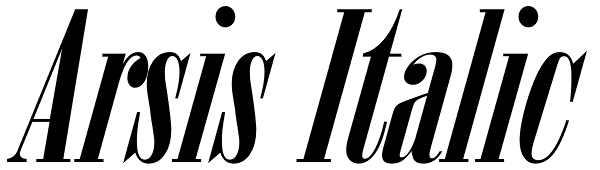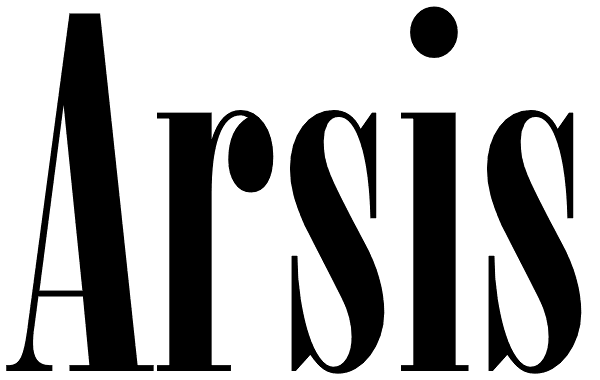
Arsis
Arsis is a condesed modern headline face that was originally produced and cast in hot metal by the Dutch type foundry Lettergieterij Amsterdam. The Arsis font family was designed by Gerry Powell in 1937. Arsis is a Serif (Antiqua) Modern Style font...
Arsis Italic
Arsis